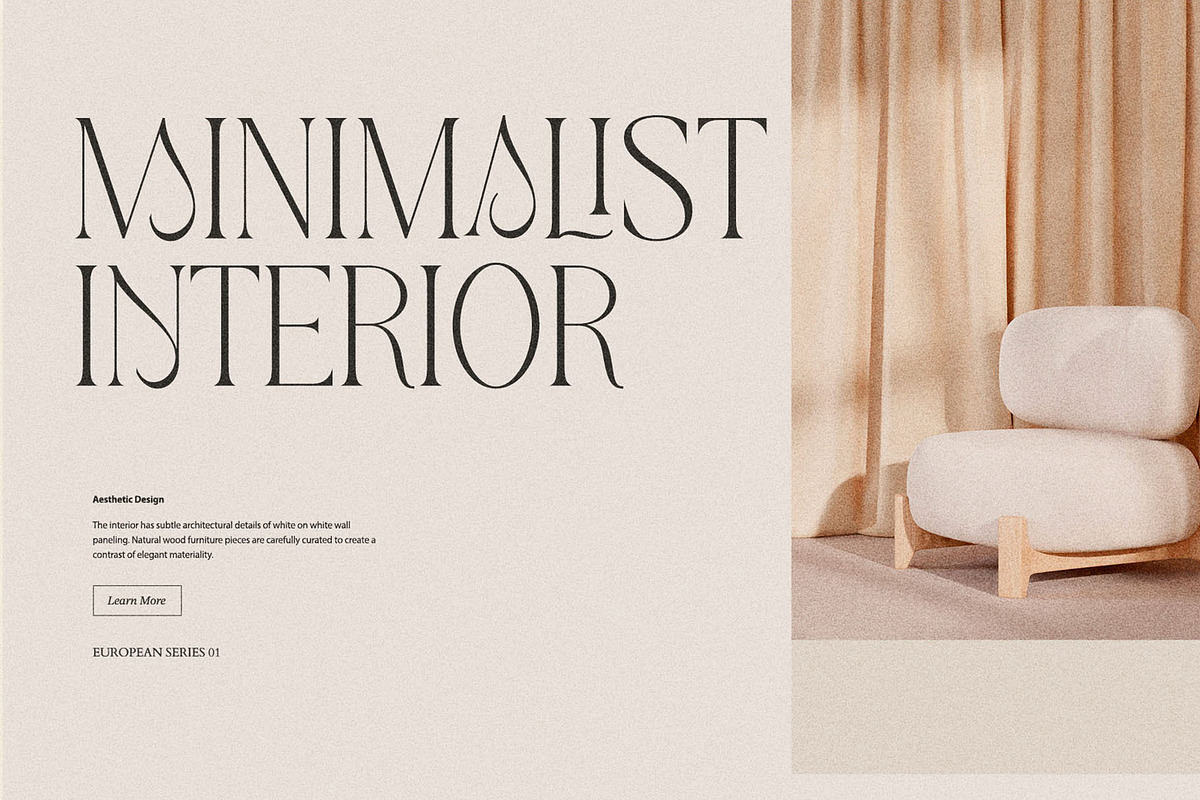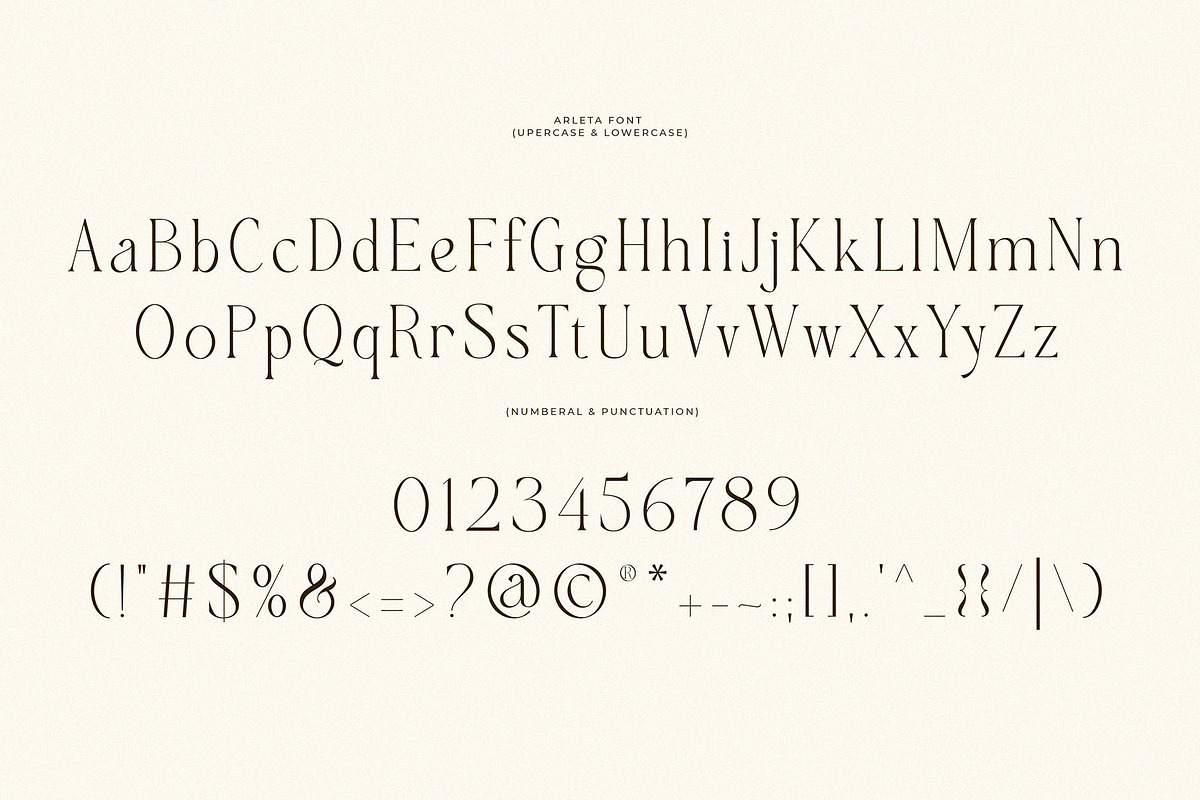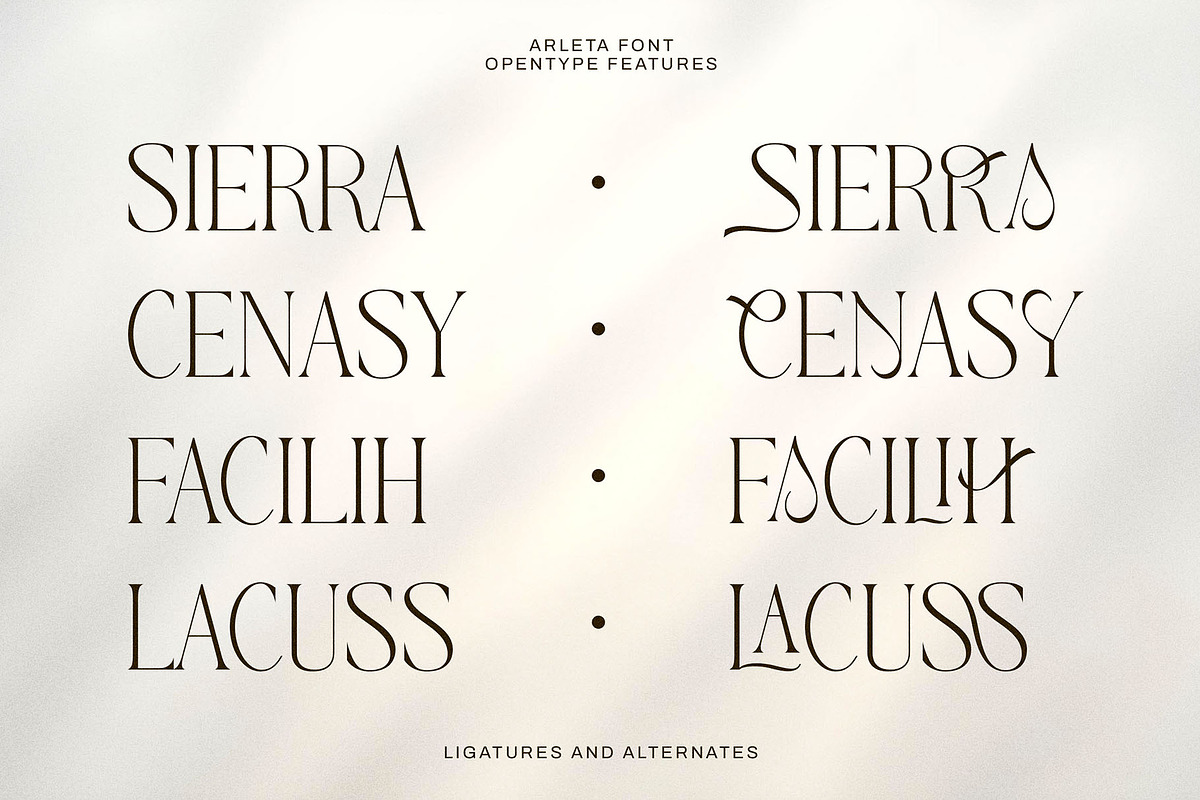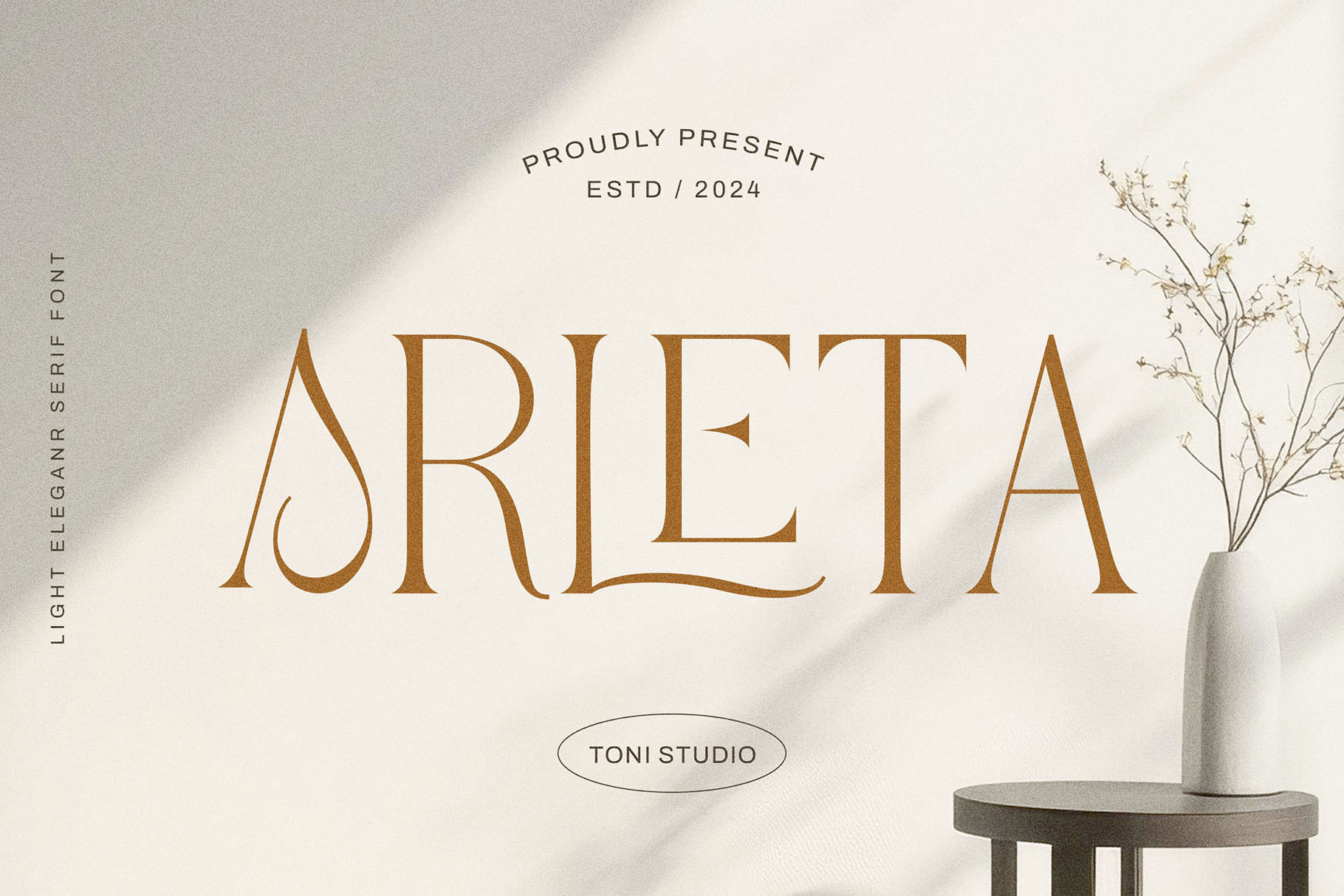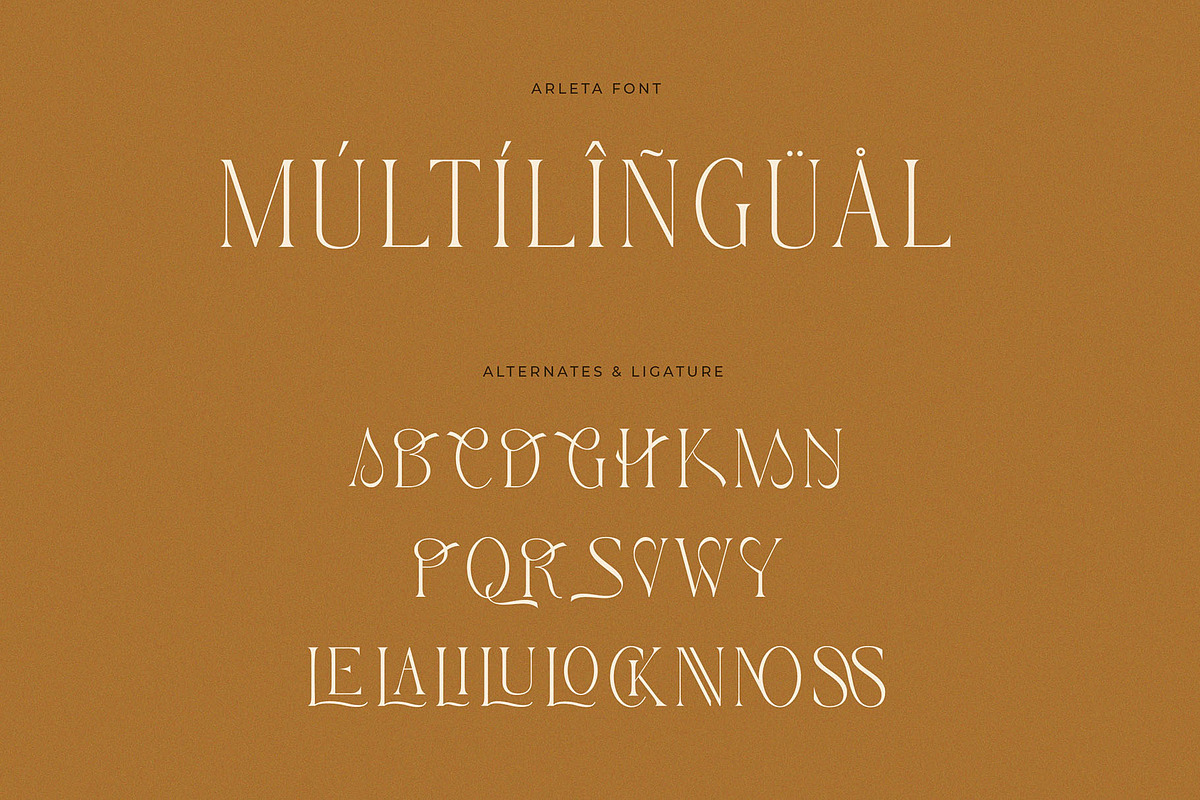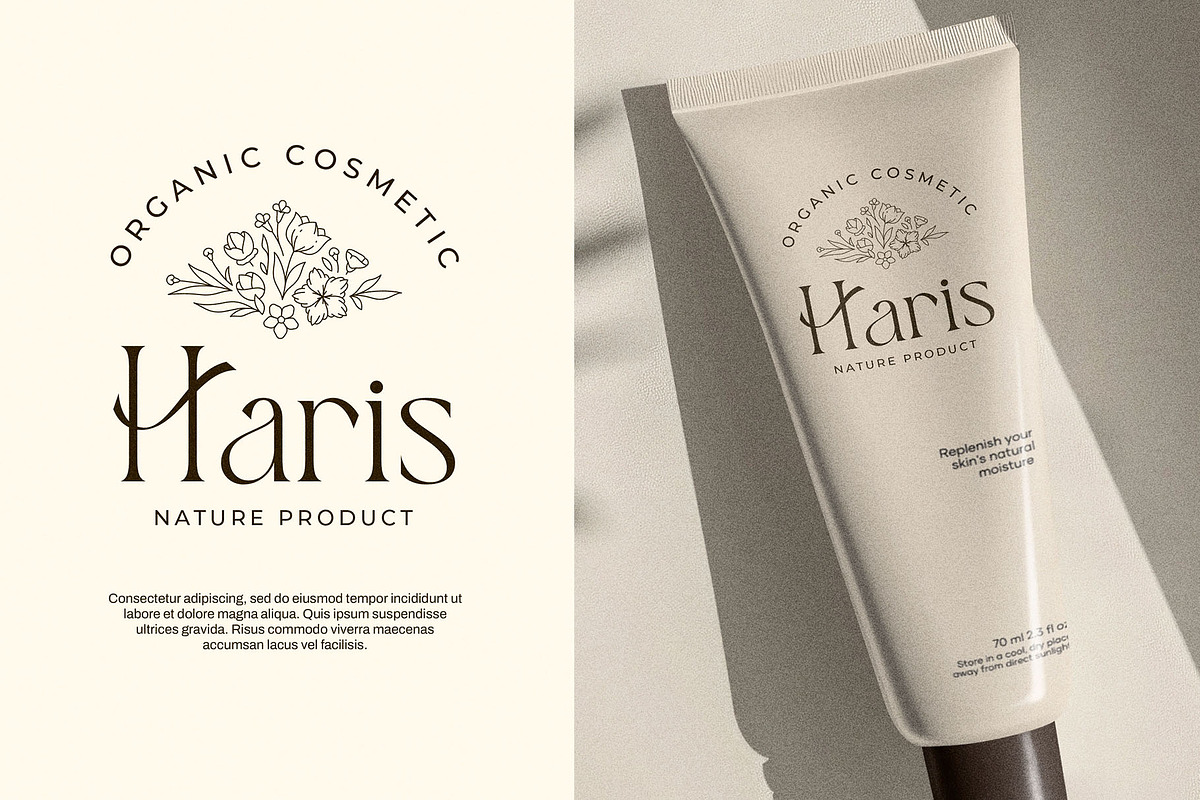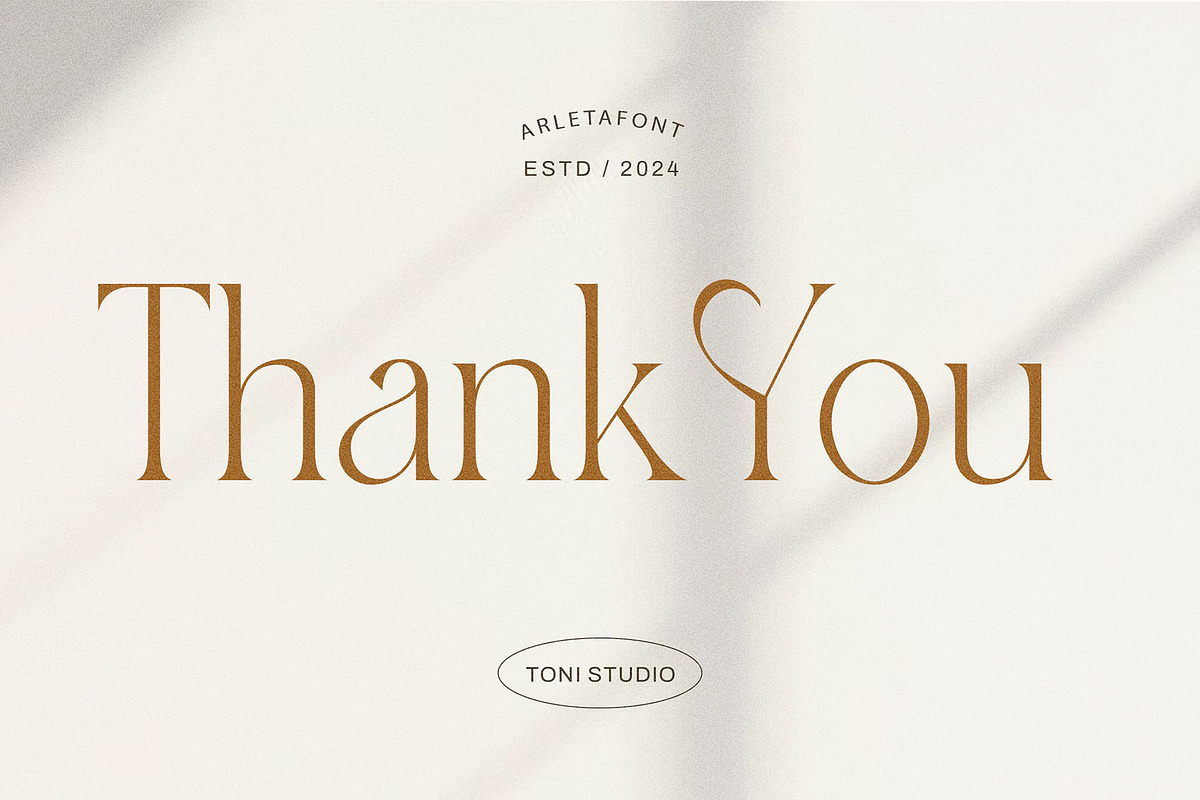
Arleta || elegant font
Introducing, Arleta, our modern and elegant sophisticated serif. This typeface is carefully crafted to ensure premium quality and a luxurious feel. The soft curves make this typeface unique and stand out, very suitable for logos, headlines, titles, and various other formal forms such as invitations, labels, logos, magazines, books, greeting/wedding cards, packaging, fashion, make-up, stationery , novels, labels or any kind of advertising purposes.
- uppercase and lowercase
- alternative